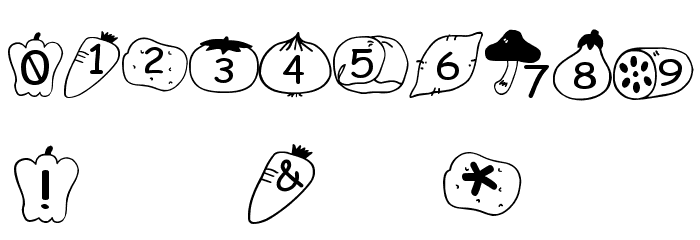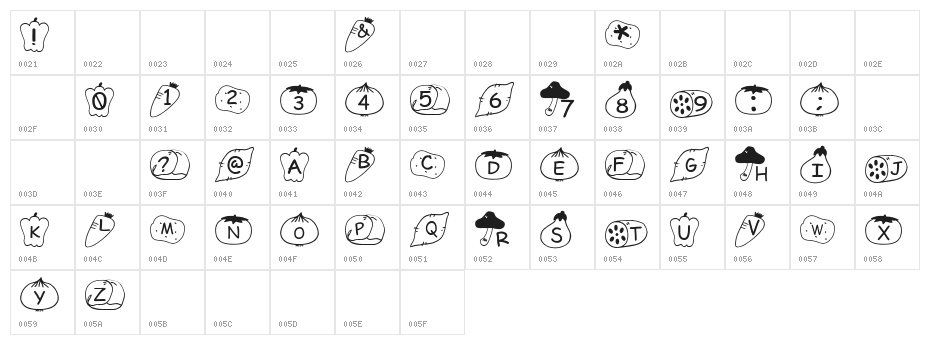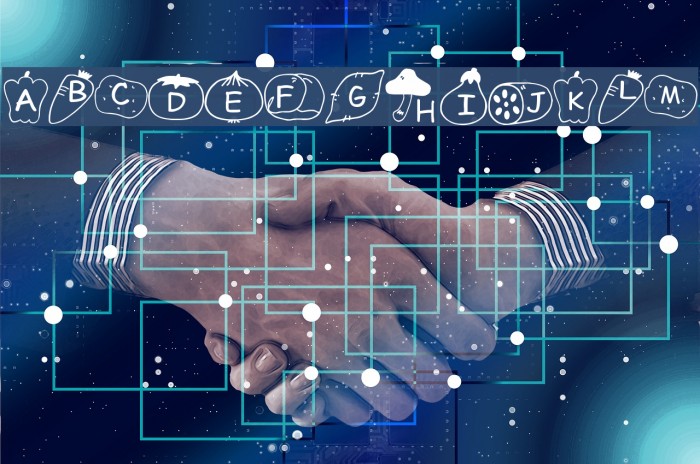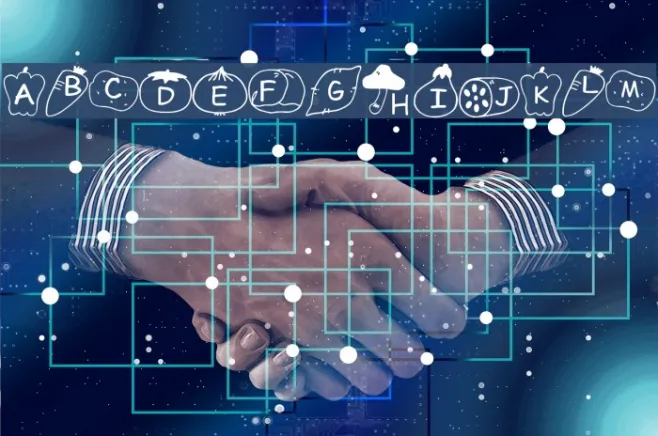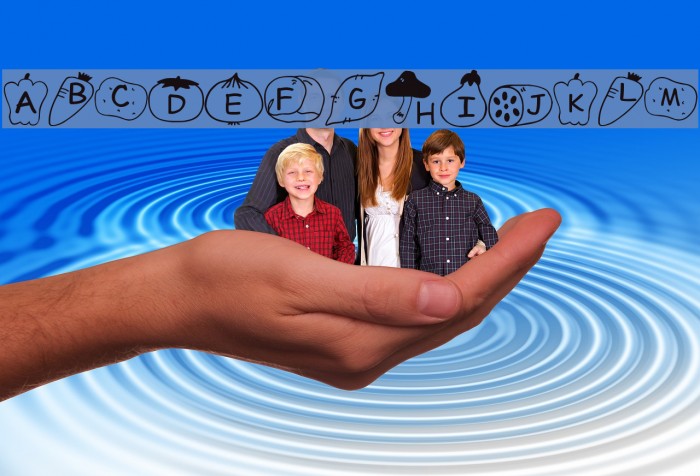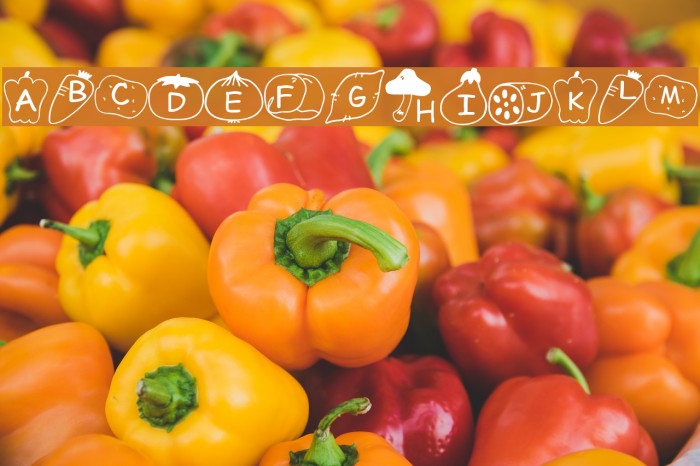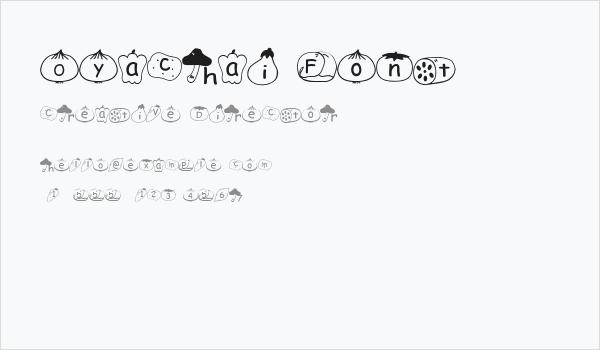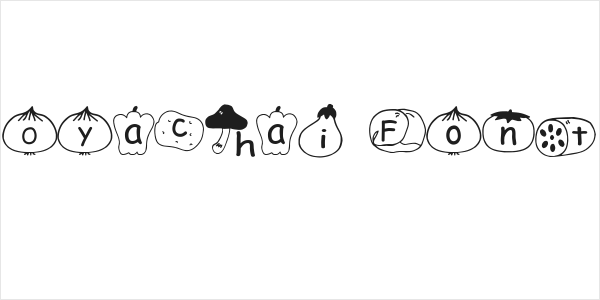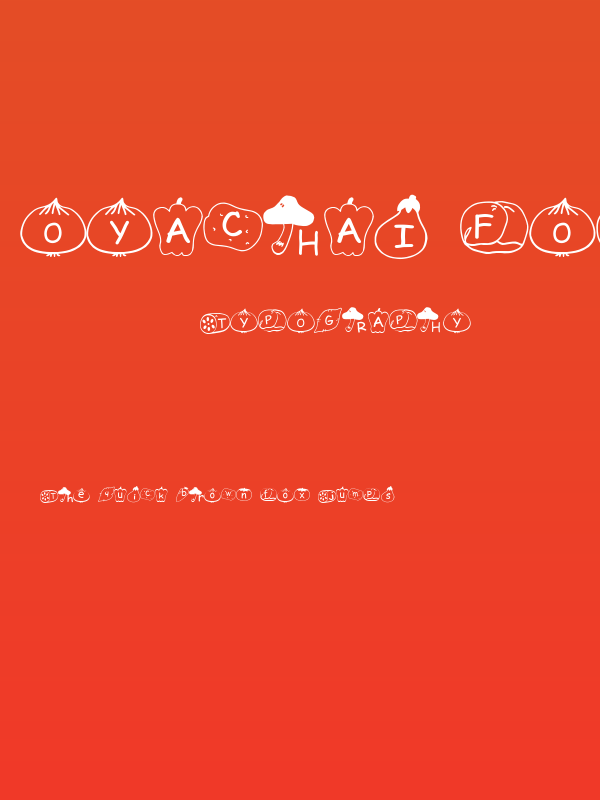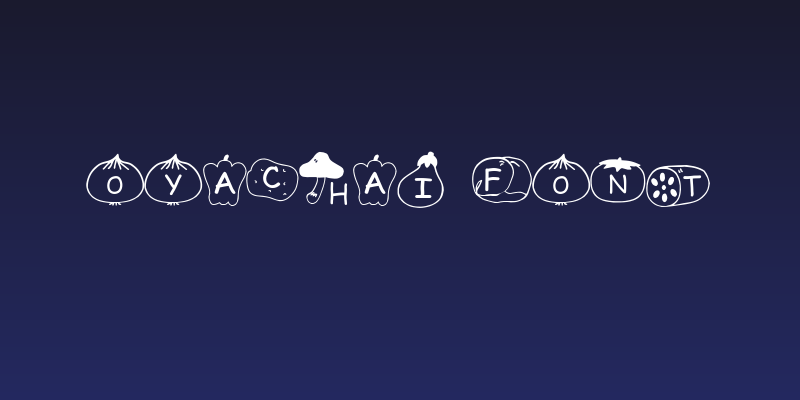
This playful and whimsical font features each character encapsulated within a unique vegetable or fruit shape, adding a fun and organic feel. The uppercase and lowercase letters, as well as numbers and special characters, are creatively integrated into various produce outlines like peppers, mushrooms, and tomatoes. The design is highly decorative, making it ideal for projects that require a touch of nature or a playful theme. The characters are bold and distinct, ensuring readability despite their intricate designs. The font's overall style is both modern and artistic, perfect for creative and informal applications.
| Use Case | Logos, Posters, Branding |
| Proposed Projects | Ideal for children's books, organic product branding, playful posters, and eco-friendly packaging designs. |